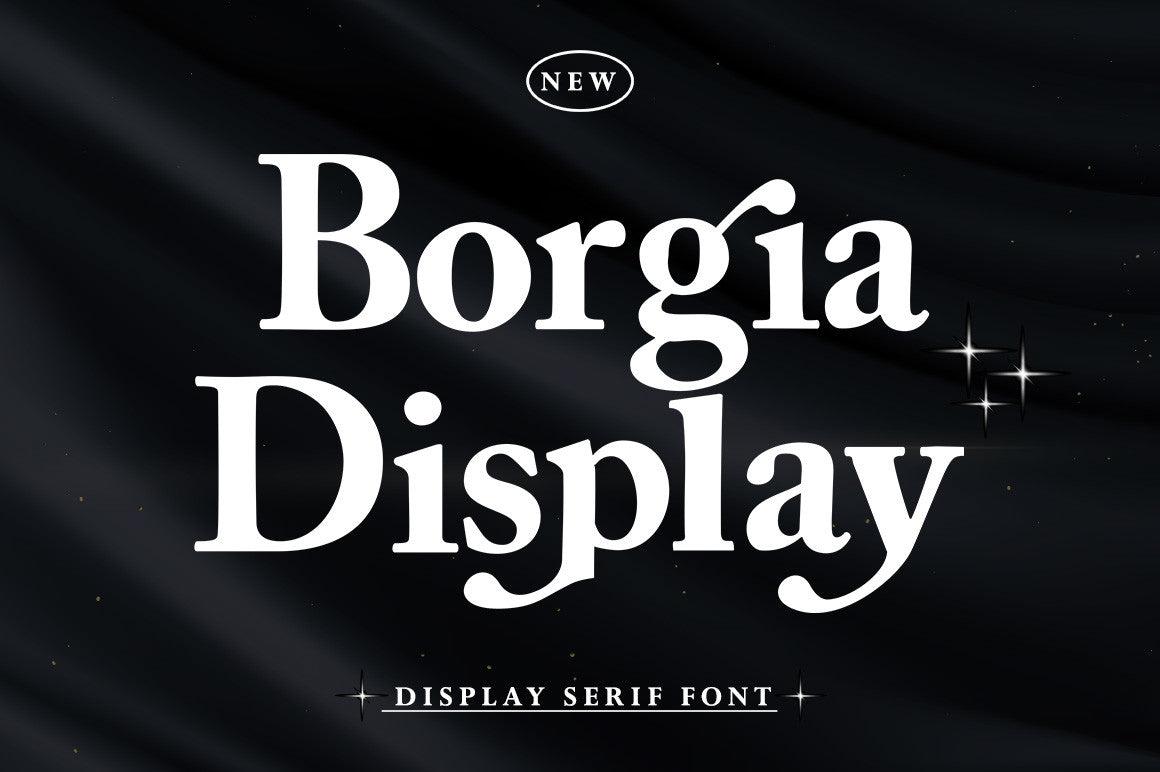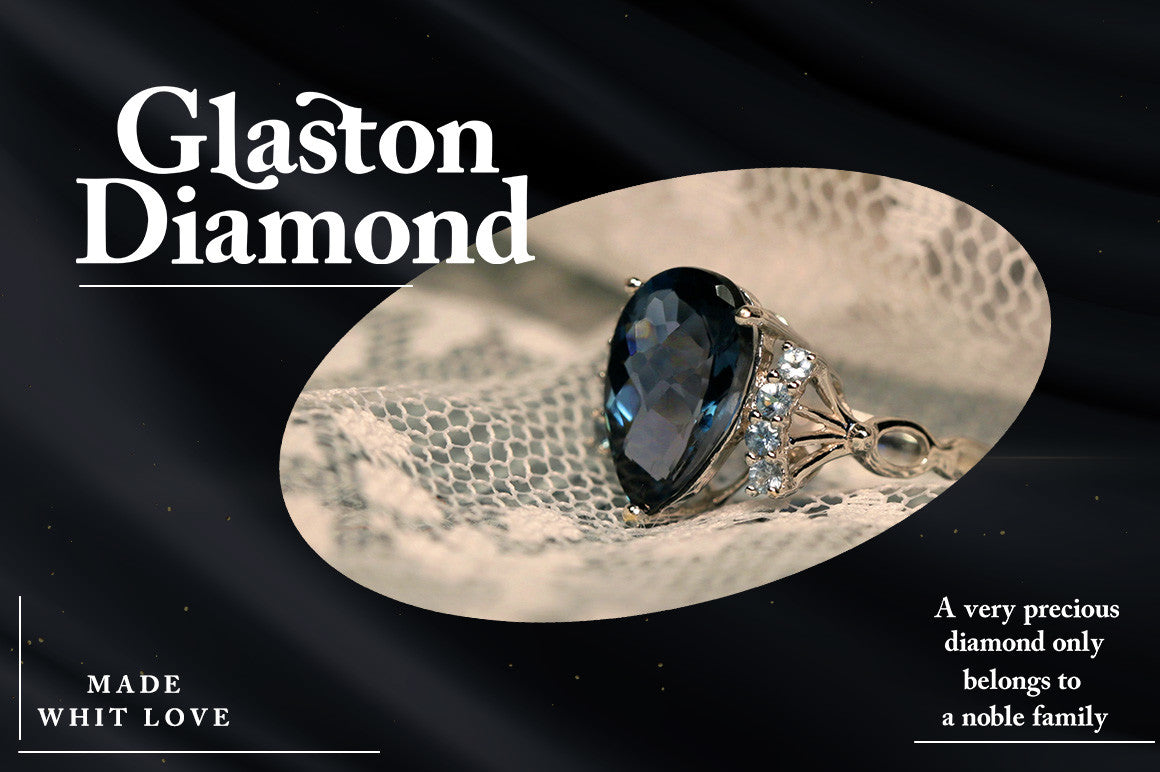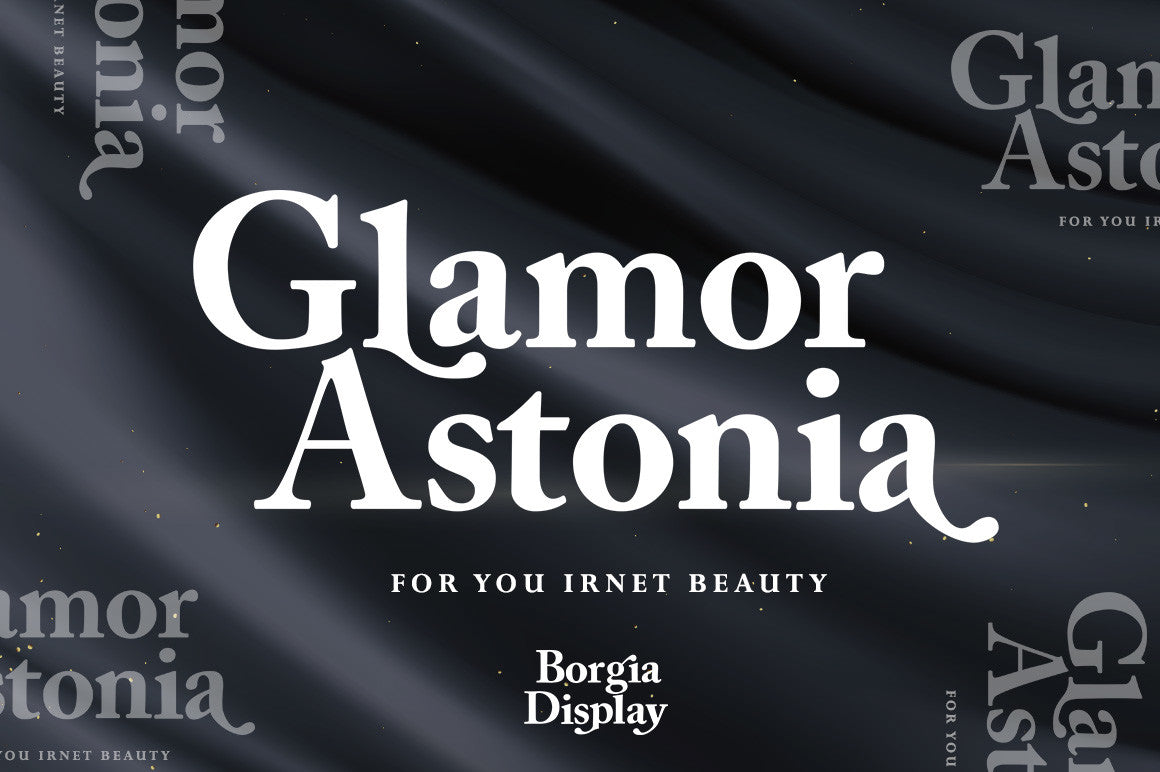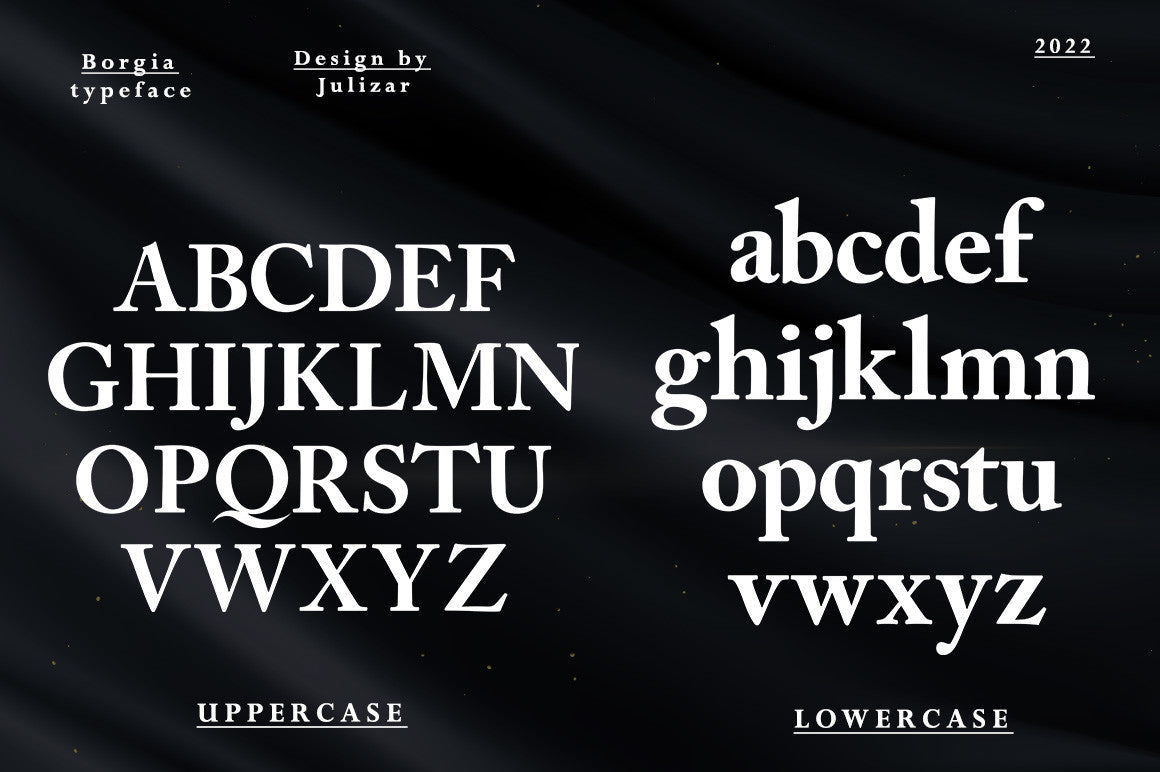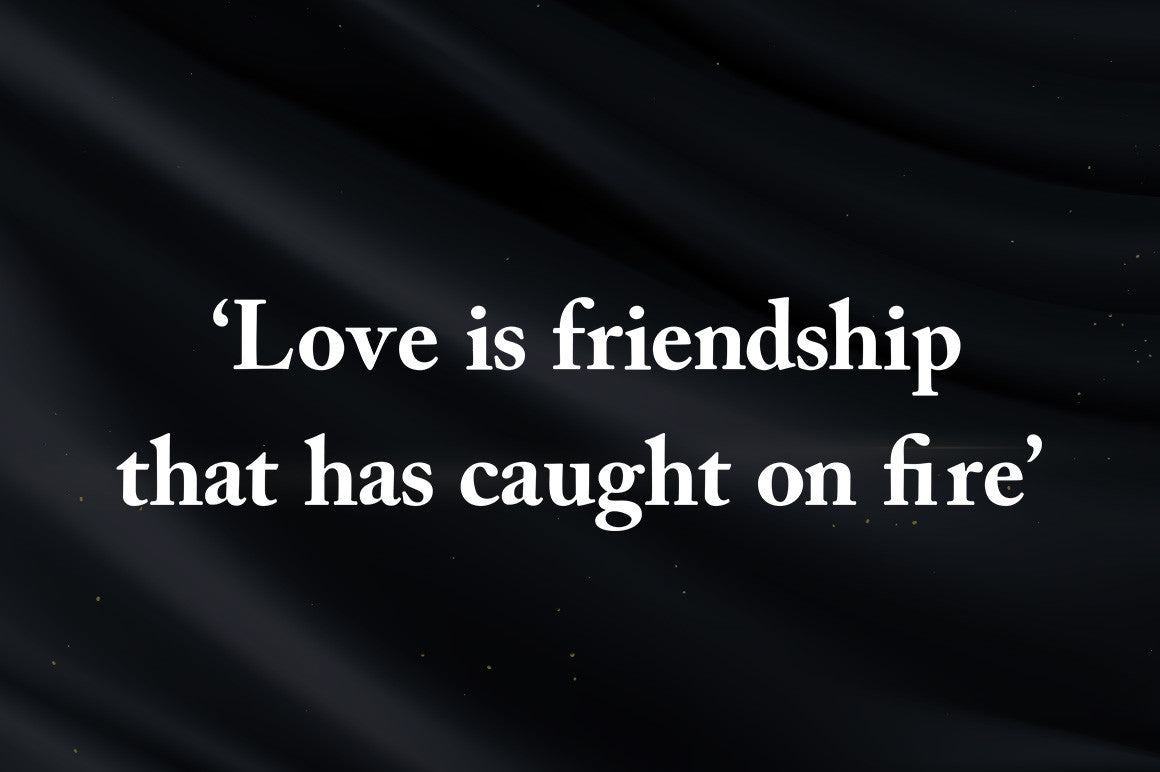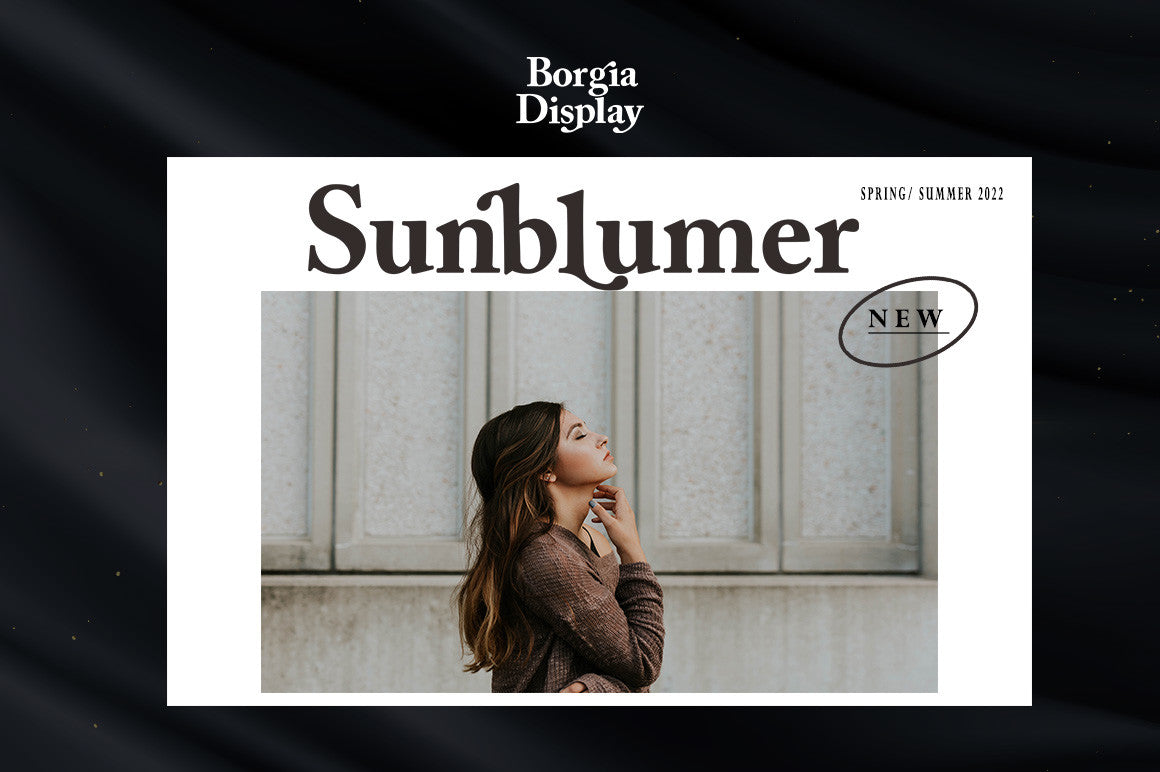
Borgia is a stylish and assertive display font. Add it confidently to your favorite creations and let yourself be amazed by the outcome generated.
This font is PUA encoded, which means you can access all glyphs and swashes with ease! With its bold character and elegant flair, Borgia is perfect for logos, posters, headlines, and branding that demand attention. It combines strength and sophistication, making every design feel powerful and polished.